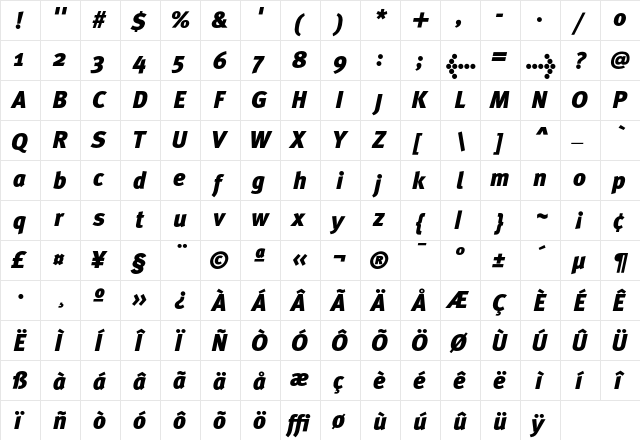
MetaPlusBlack- Italic
Design Context for MetaPlusBlack- Typeface
MetaPlusBlack- takes a measured approach to typography — its balanced proportions and neutral character make it a reliable workhorse for both digital and print work. Its italic angle brings a sense of urgency and motion to the letterforms.
Pro Tip: Try MetaPlusBlack- for annotation and caption copy alongside an upright companion — the contrast in angle creates a dynamic but ordered typographic system.